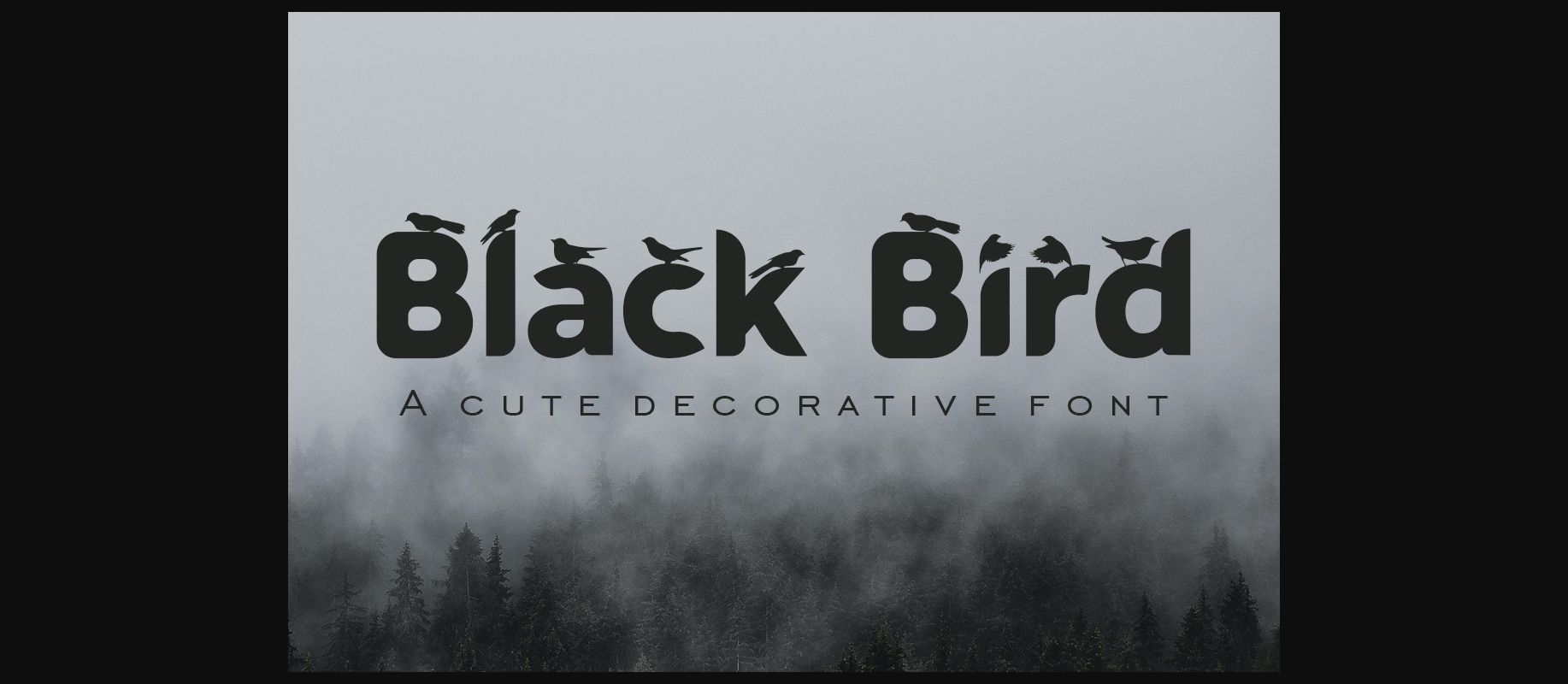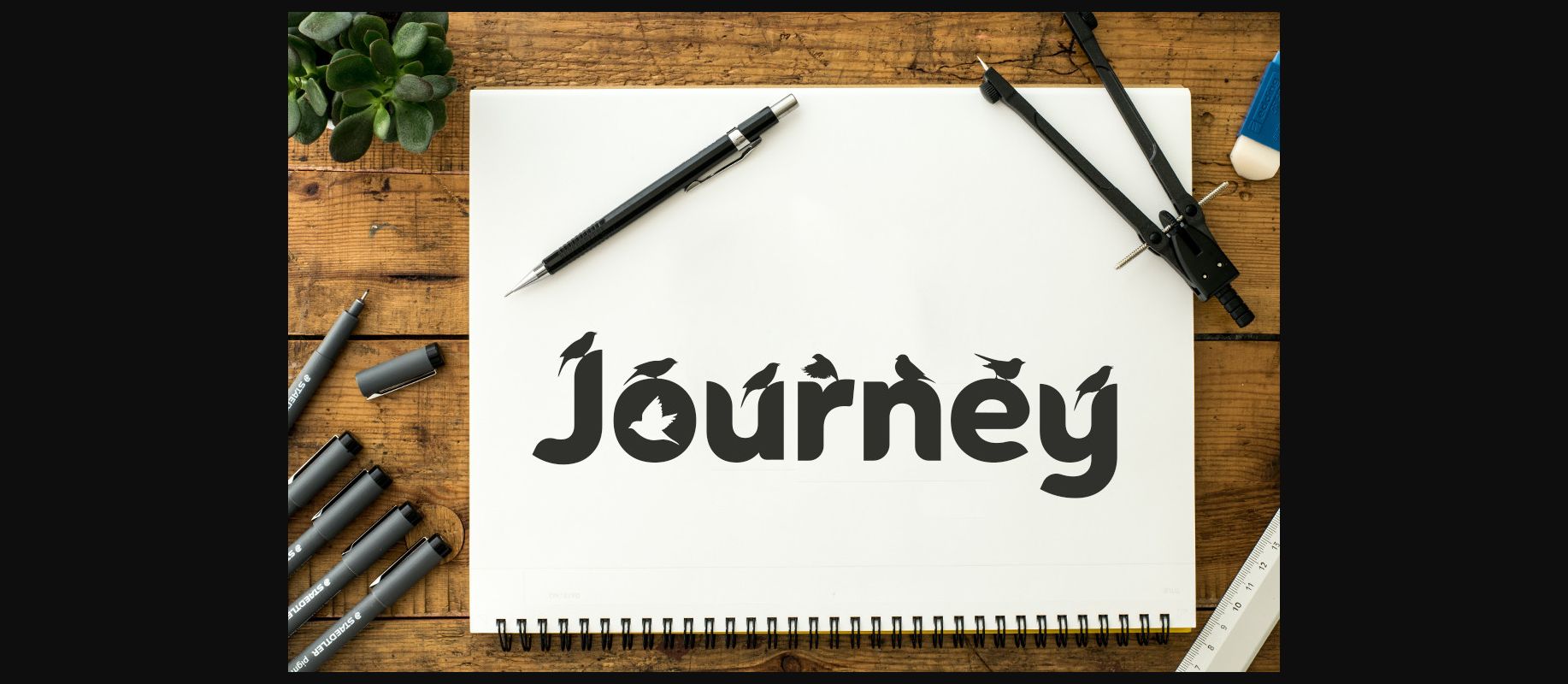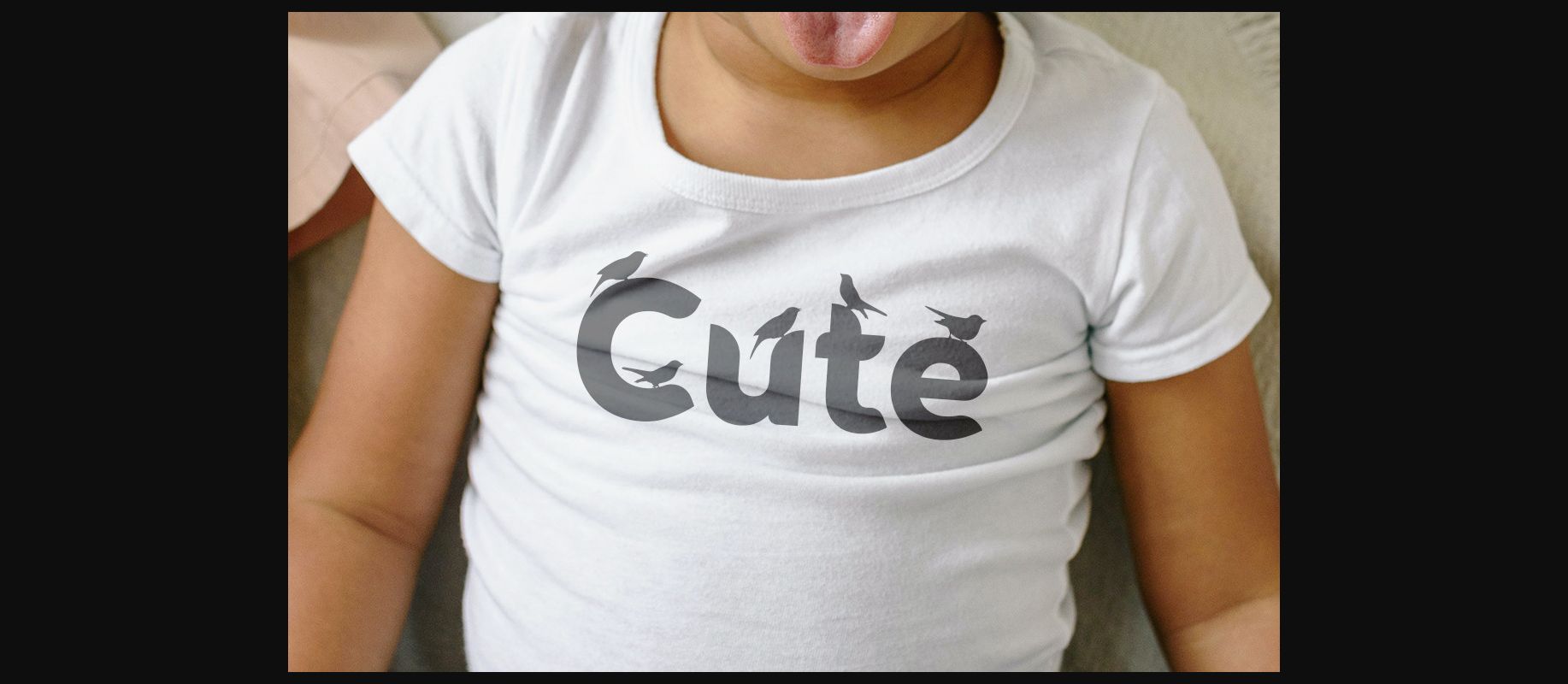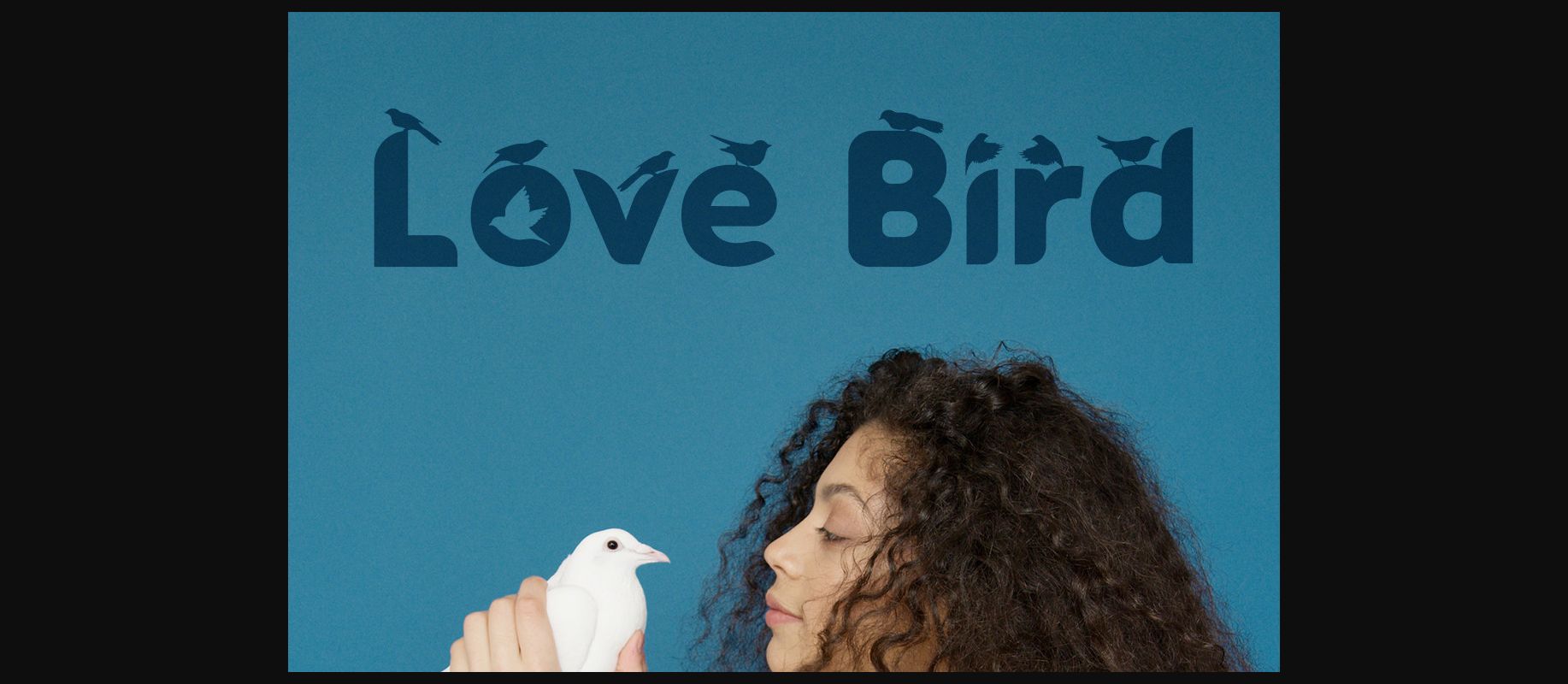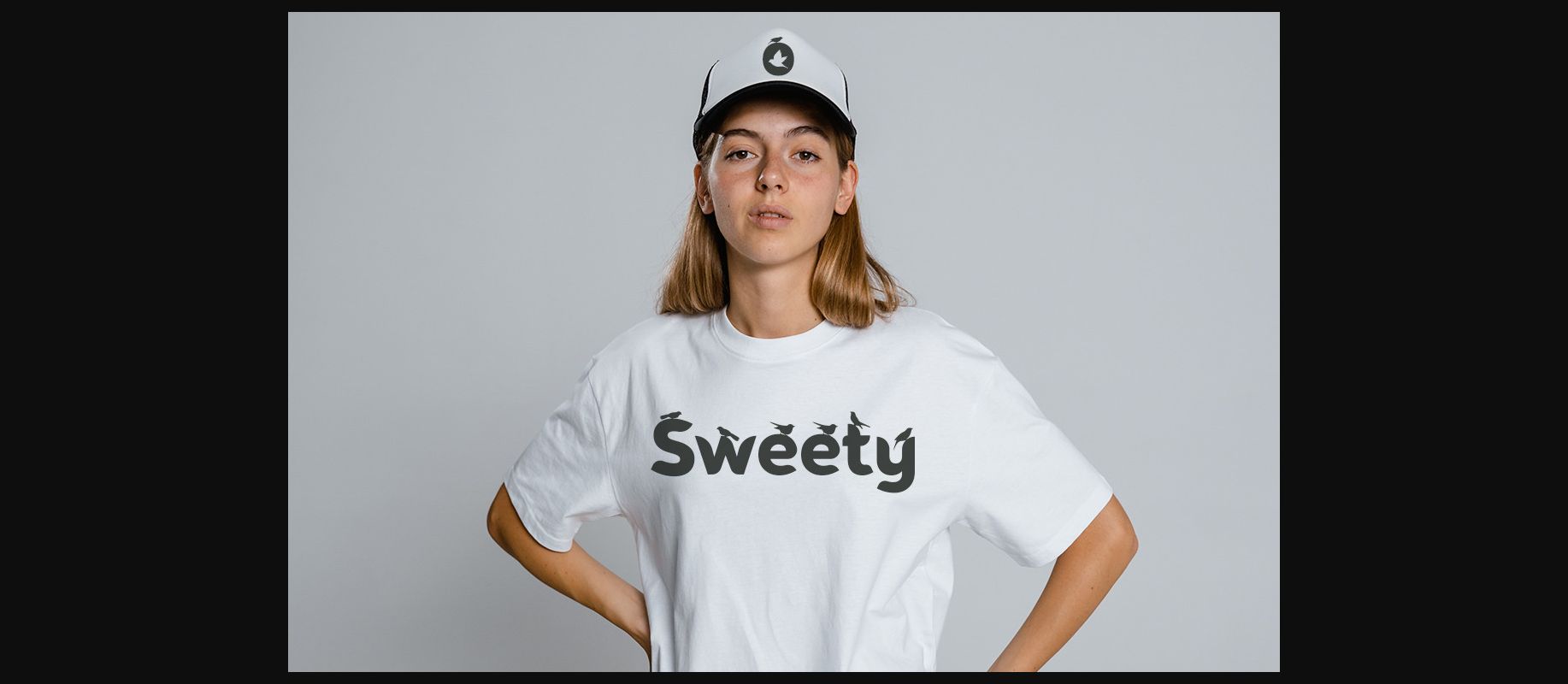
About Black Bird Font
Black Bird is a cute and cool decorative font inspired by a flock of little birds. it is perfect for your various creative projects such as company names, anniversaries, wedding invitations, t-shirts, product names, product packaging, book titles, magazines, fictional story titles and any design. even one that needs a nice, distinctive touch!